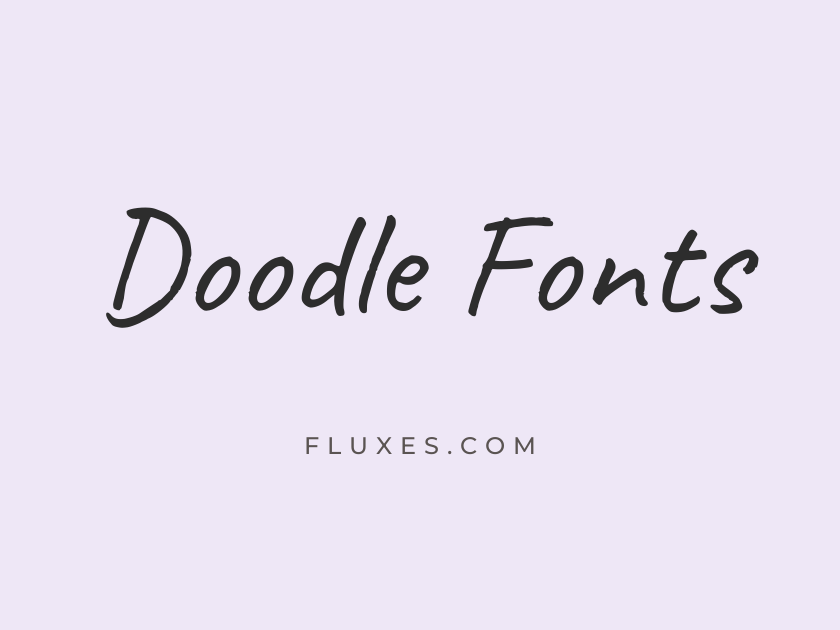
70 Best Doodle Fonts
Doodle fonts bring the energy of a marker on a notebook margin, a sticky note scrawled in a hurry, or a hand-lettered sign taped to a bakery window. They work anywhere a brand wants to feel approachable rather than corporate: kids’ packaging, craft blogs, birthday invitations, social graphics, comics, and playful logos. The best free doodle fonts on Google Fonts span loose handwriting, bouncy bubble letters, scratchy marker strokes, and comic-book lettering, and picking the right one is mostly about matching the wobble and weight to the mood you’re after.
1. Caveat
Sketch it out before you build it
Caveat is the workhorse of casual handwriting fonts, with a natural forward lean and enough weight variation between its styles to read clearly at both small captions and oversized headlines. It has become a default choice for a reason: the letterforms feel personal without tipping into messy.
2. Kalam
Notes, sketches, and margin doodles
Kalam carries the rounded, slightly childlike rhythm of a gel pen, making it a favorite for journaling apps, lesson materials, and anything that wants to feel like a friendly note rather than a printed label.
3. Patrick Hand
Homework margins full of little drawings
Patrick Hand mimics the neat print handwriting of a diligent student, tidy enough for body copy but still full of warmth. It pairs nicely with looser display scripts when a project needs one calm voice and one expressive one.
4. Patrick Hand SC
Small caps for a hand-drawn worksheet
The small-caps sibling of Patrick Hand swaps lowercase letters for gently rounded capitals, which suits classroom worksheets, recipe cards, and packaging that wants a handwritten label without full cursive flow.
5. Shadows Into Light
Doodled hearts in the corner of the page
Shadows Into Light has a breezy, unhurried quality, like someone jotting a thought while daydreaming. It gets muddy in long paragraphs, so keep it to short lines, quotes, or greeting-card text.
6. Shadows Into Light Two
Scribbled thoughts on a napkin
A bolder, slightly more upright cousin of the original, this version holds up better at small sizes on screen while keeping the same relaxed, personal tone.
7. Indie Flower
Loopy letters and cheerful little sketches
Indie Flower is round, bubbly, and endlessly cheerful, the kind of handwriting that seems incapable of frowning. It shows up constantly in kids’ brands and craft shops because it reads as friendly at a glance.
8. Gochi Hand
Quick sketch, quick caption, done
Gochi Hand looks like fast, confident felt-tip writing, with just enough irregularity to feel human. It’s a solid pick for sticker text, planner pages, and social captions that need personality in a short burst.
9. Architects Daughter
Blueprint notes doodled in the margin
Named for the look of an architect’s informal handwriting, this font has a slight technical stiffness that separates it from purely whimsical scripts. It suits craft tutorials, DIY blogs, and anything referencing sketching or drafting.
10. Permanent Marker
Big bold marker doodles on cardboard
Permanent Marker delivers exactly what its name promises: thick, confident strokes with the slightly uneven edge of a real Sharpie running low on ink. It’s built for headlines and short punchy phrases, not paragraphs, where it can dominate a poster or badge design with almost no supporting decoration needed.
11. Gloria Hallelujah
Cheerful notes scribbled in the sketchbook
Gloria Hallelujah has a slightly wobbly, joyful bounce that feels like it was written mid-laugh. It’s a favorite in webcomics and casual UI illustrations for exactly that reason.
12. Sriracha
Spicy little sketch notes and labels
Compact and slightly condensed, Sriracha reads like quick brush handwriting and works well in tight spaces such as product labels or narrow social graphics.
13. Neucha
Casual handwritten reminders and doodles
Neucha has an easy, rounded informality with Cyrillic roots, giving it a slightly different rhythm than the typical American handwriting font. It suits friendly blog headers and casual branding.
14. Comic Neue
A tidier take on comic book lettering
Comic Neue was built as a cleaner, more professional alternative to the much-maligned Comic Sans, keeping the friendly roundness while sharpening the proportions. Designers reaching for a nostalgic comic look without the baggage tend to land here.
15. Schoolbell
Chalkboard doodles from the back row
Schoolbell has the loose, rounded charm of a teacher’s handwriting on a worksheet, making it a natural fit for education-themed projects and nostalgic classroom graphics.
16. Coming Soon
A note taped up saying more coming soon
Coming Soon is understated as handwriting fonts go, with a light touch that works well for small interface text, tooltips, or playful placeholder pages.
If a brand needs both a friendly logo and readable UI text, consider mixing a bubble display font like Chewy or Fredoka with a calmer handwriting style like Patrick Hand or Kalam for supporting text.
With this many free, genuinely distinct doodle fonts on Google Fonts, there is rarely a reason to reach for a paid alternative. Download a handful, test them at the sizes your project actually needs, and let the hand-drawn charm do the work.